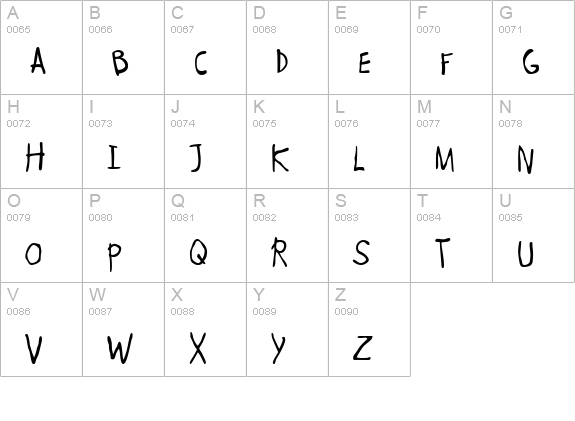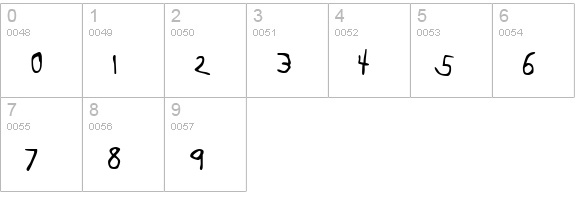
Boopee font is a charming and playful typeface that adds a touch of whimsy to any design project. With its rounded edges and friendly appearance, Boopee is perfect for creating eye-catching headlines, posters, invitations, and more. The font's unique style makes it stand out from the crowd and adds a fun and creative element to any design. Best of all, Boopee font is available for free download at FontsMarket.com. Whether you're a professional designer looking for a new typeface to add to your collection or a hobbyist looking to spice up your projects, Boopee is the perfect choice. Download it today and let your creativity shine with this delightful font!